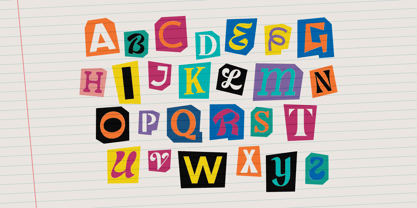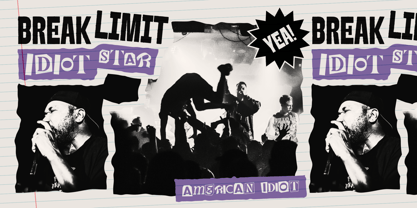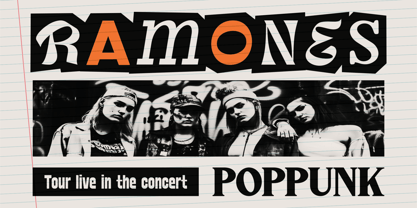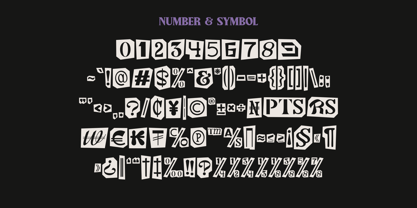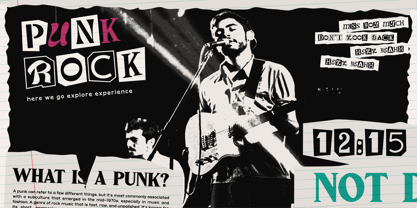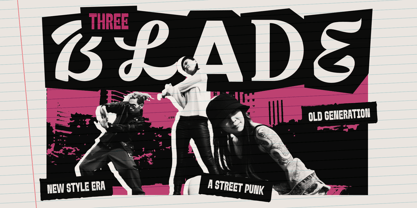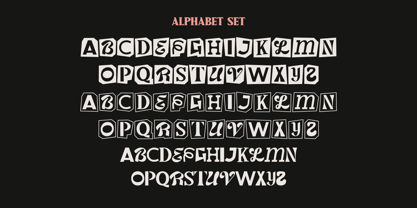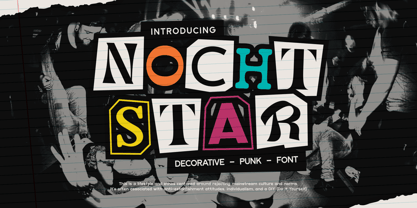
Nocht Star
by Maikohatta
The Nocht Star Font Family was designed by Gilang Ternadho and published by Maikohatta. Nocht Star contains 1 styles. More about this family
Introducing our new product Nocht Star - Decorative Punk Font
Nocht Star - Decorative Punk Font is a distinctive typeface embodying the classic ransom style, blending vintage aesthetics with a gritty, rebellious edge. This font is particularly suitable for designs that require a bold, unconventional look and is available in three versatile options.
Designers: Gilang Ternadho